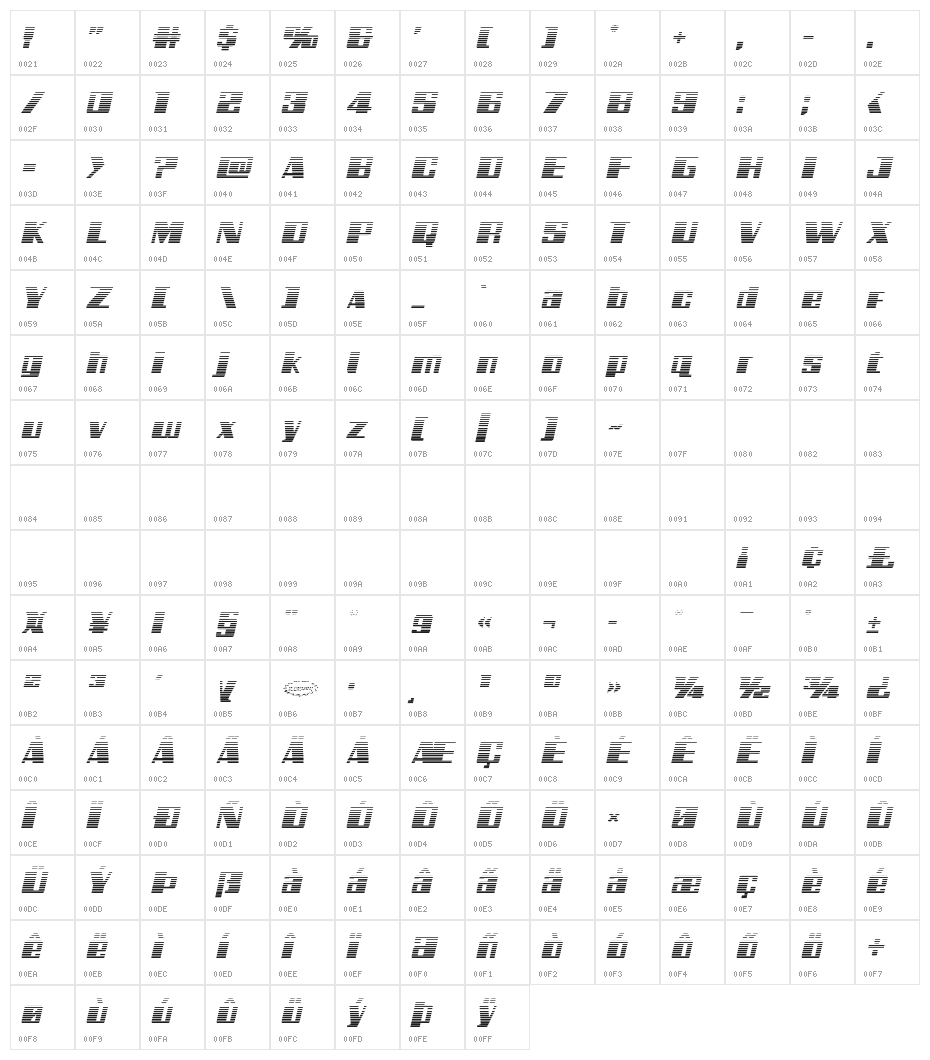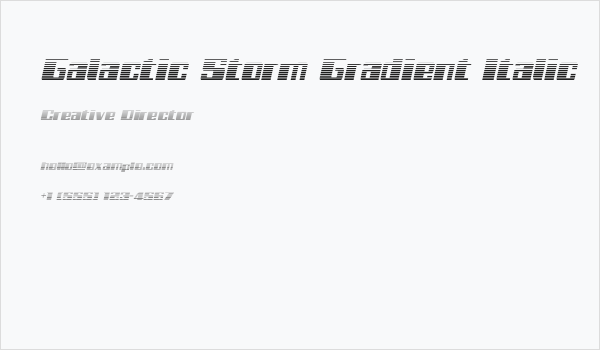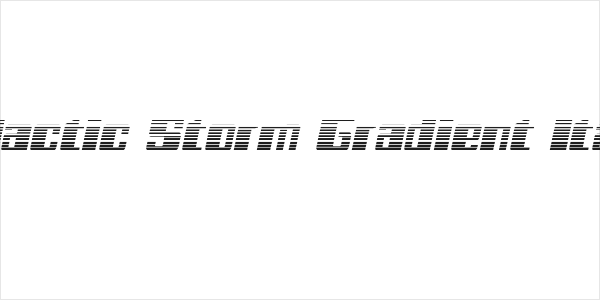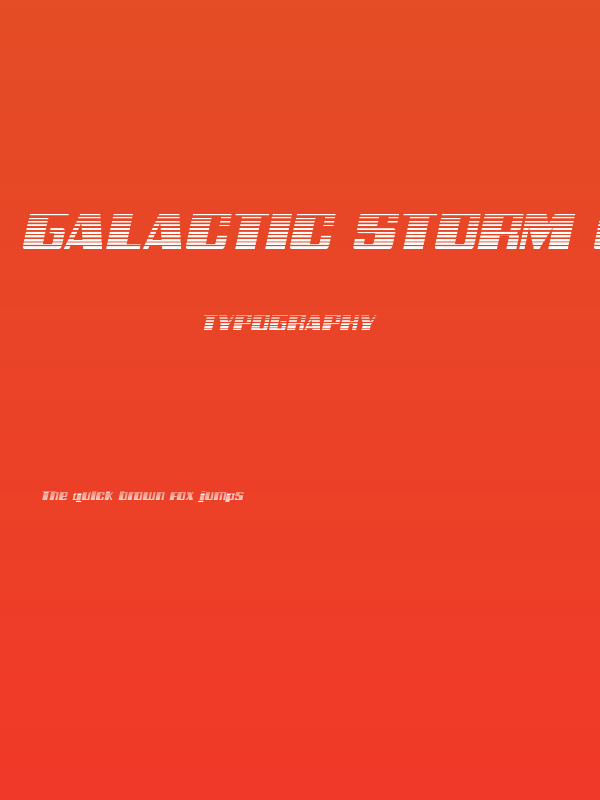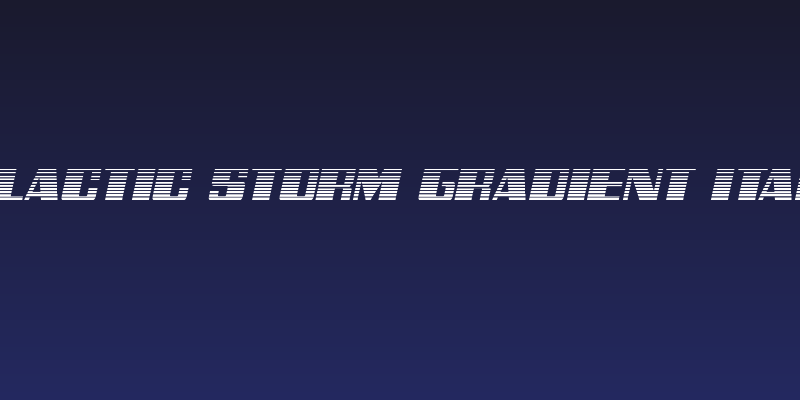
Galactic Storm Gradient Italic Font
Galactic Storm Gradient Italic Description
This font features a futuristic and dynamic design with a distinct italic slant, giving it a sense of motion and speed. The characters are composed of horizontal lines that create a gradient effect, enhancing its modern and technological appearance. The uppercase and lowercase letters maintain a consistent style, with sharp angles and clean edges. The numerals and special characters are designed to match the overall aesthetic, making it suitable for projects that require a bold and eye-catching typeface.
| Proposed Projects | Ideal for sci-fi themed designs, video game titles, tech branding, and futuristic posters. |